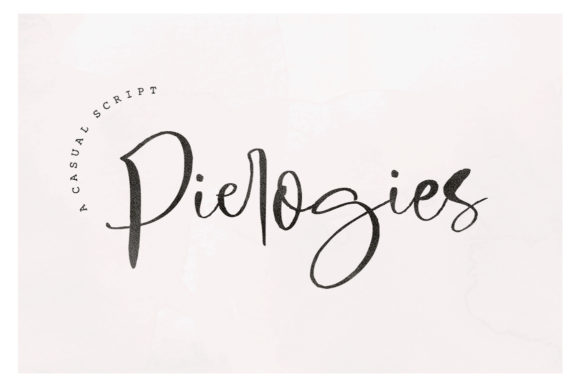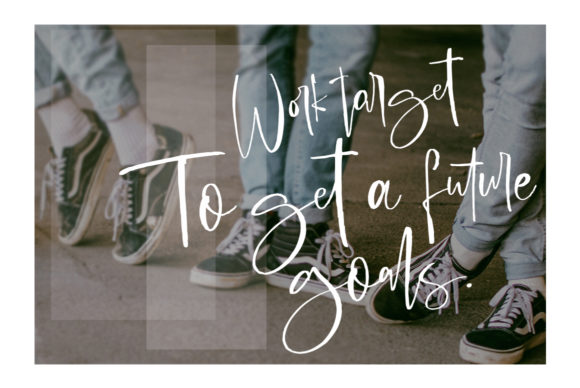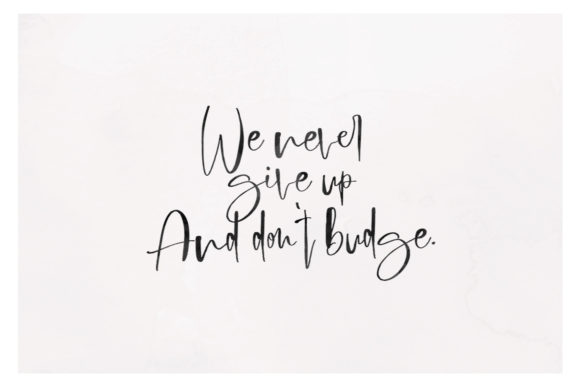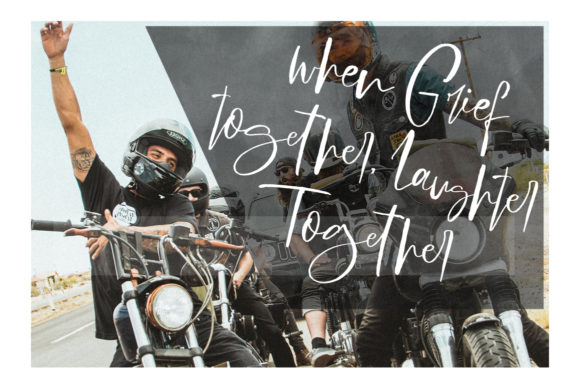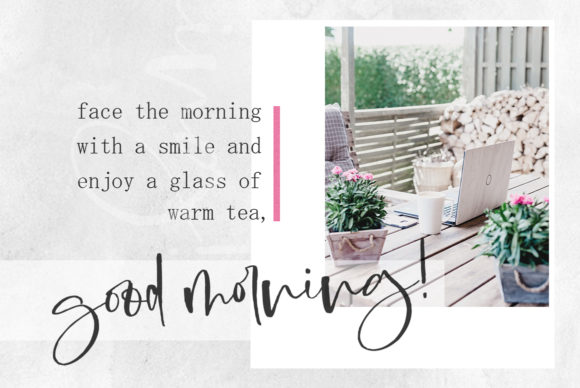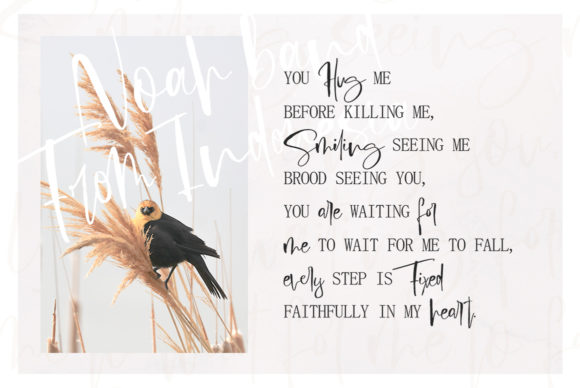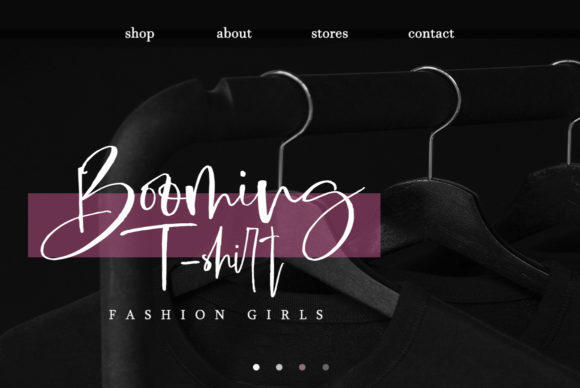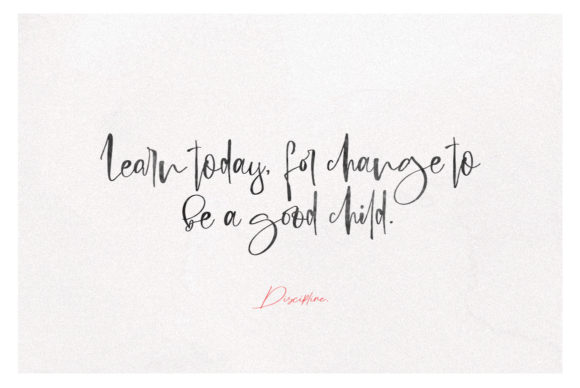
Pierogies Script Font
About Pierogies Script Font
The Pierogies is a beautiful signature font. It has a luxurious style and is perfect for every design which needs to look upscale and chic.